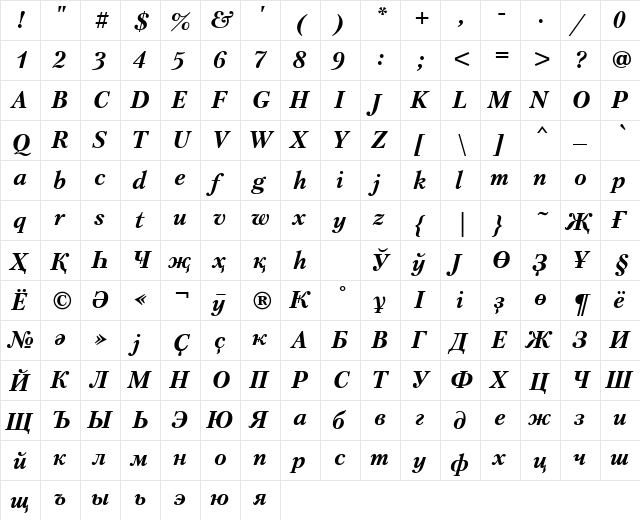
PetersburgITT BoldItalic Font Preview
Design Context for PetersburgITT Typeface
PetersburgITT takes a measured approach to typography — its balanced proportions and neutral character make it a reliable workhorse for both digital and print work. Its italic angle brings a sense of urgency and motion to the letterforms. Its bold stroke weight gives it real presence on the page.
Pro Tip: Try PetersburgITT for annotation and caption copy alongside an upright companion — the contrast in angle creates a dynamic but ordered typographic system.